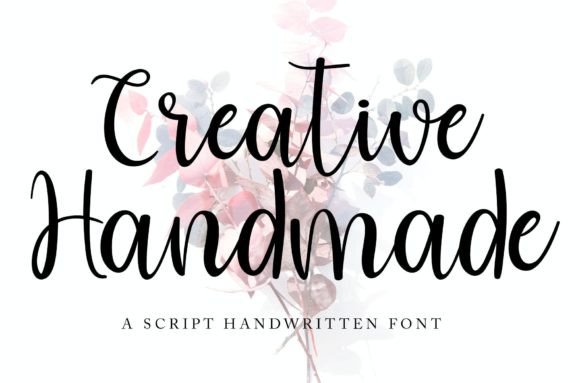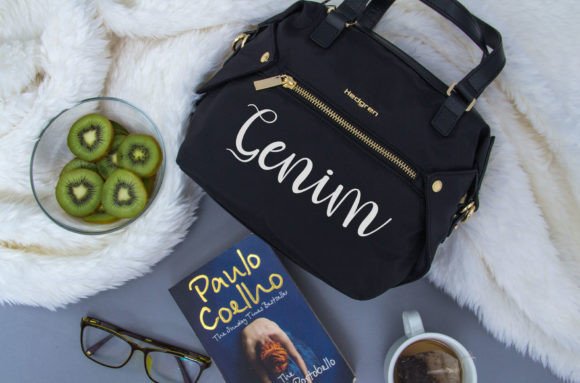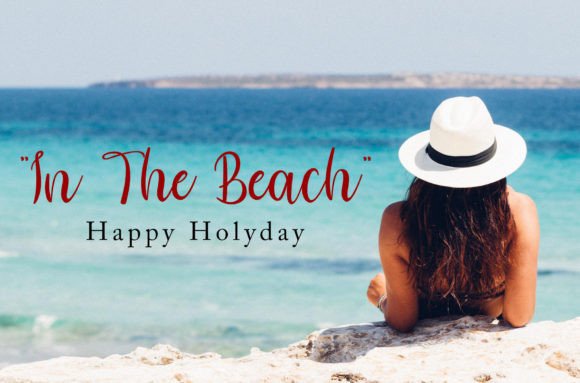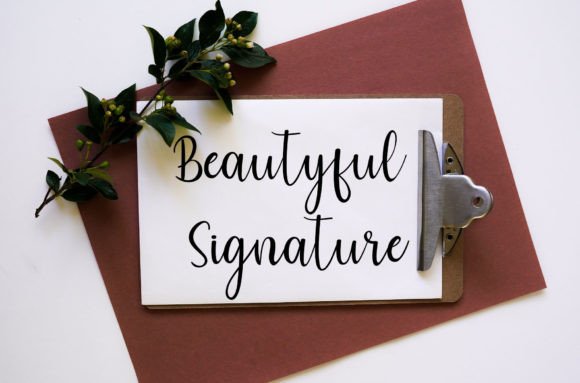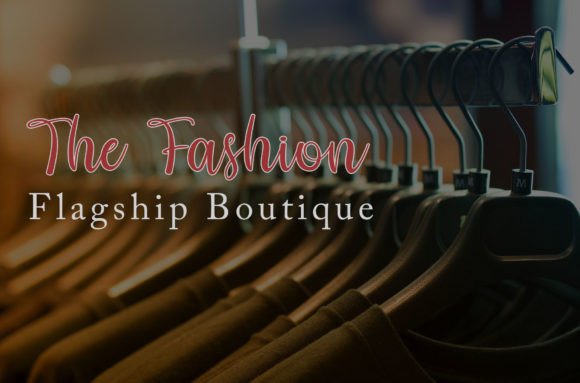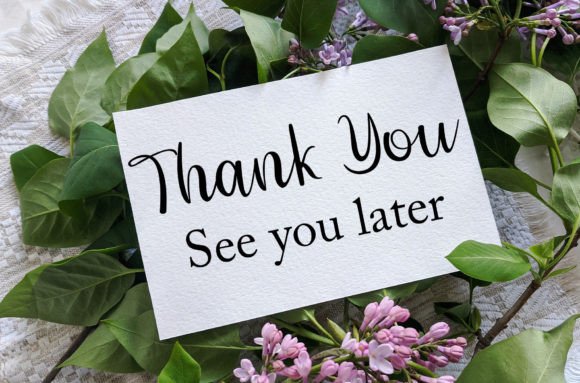
About Creative Handmade Font
“Creative Handmade” is a bold and expressive handwritten script font that combines thick, solid lines with conservative curves, resulting in a design that is both easy to read and visually engaging. This balanced mix of fun and professionalism makes “Creative Handmade” a versatile choice for a wide variety of design projects.
The font’s bold and expressive nature adds a touch of personality and impact to your creative work. Its readability and unique style make it suitable for projects that require a bold statement without overwhelming the viewer. “Creative Handmade” can be a great fit for logos, branding, signage, posters, invitations, and much more.
In the world of design, fonts play a crucial role in conveying personality, setting the tone, and capturing attention. “Creative Handmade” excels in these aspects by offering a handwritten script style that balances readability with a distinct visual flair. Its aesthetics infuse your designs with a sense of creativity and professionalism, making them both engaging and memorable.
In summary, “Creative Handmade” is more than just a font; it’s a bold and expressive design tool that can make a strong impact in a variety of projects. Its unique style and balanced design are ideal for designers seeking to create work that stands out while maintaining readability and professionalism. Whether you’re an experienced designer or just starting your creative journey, “Creative Handmade” is the font that can help you create designs that leave a lasting impression.